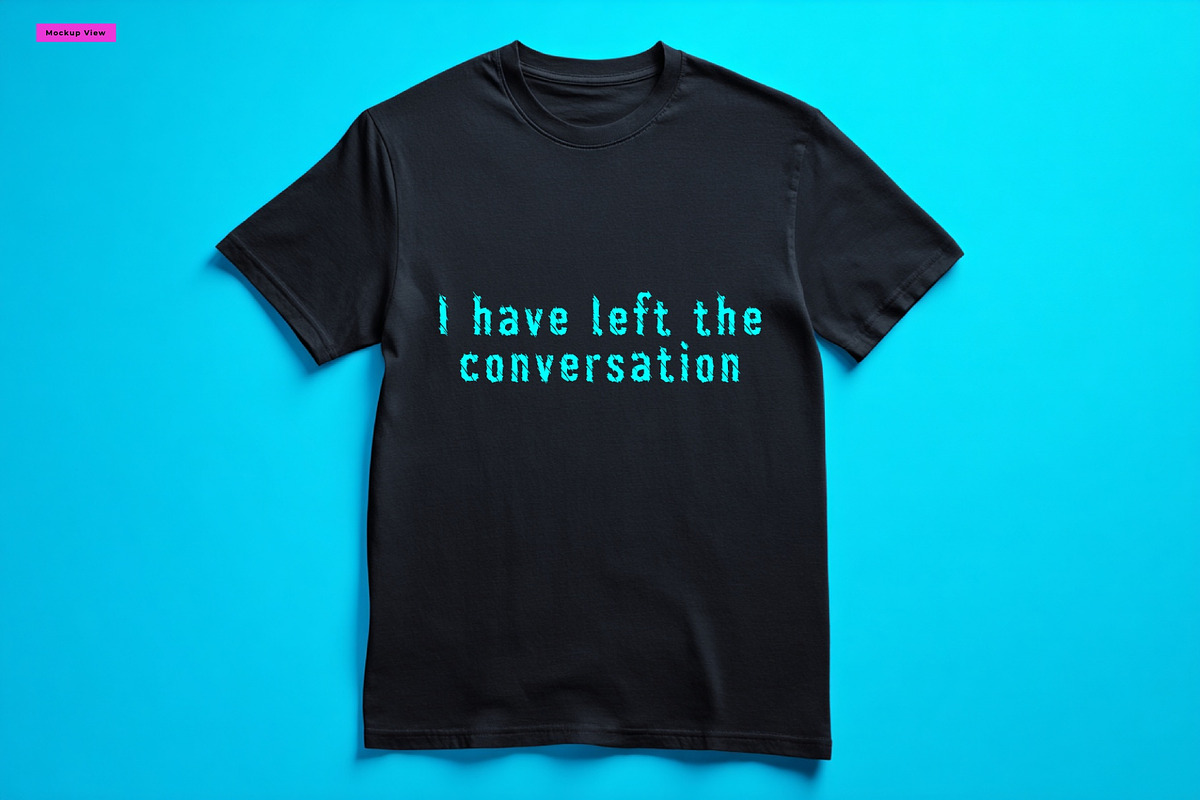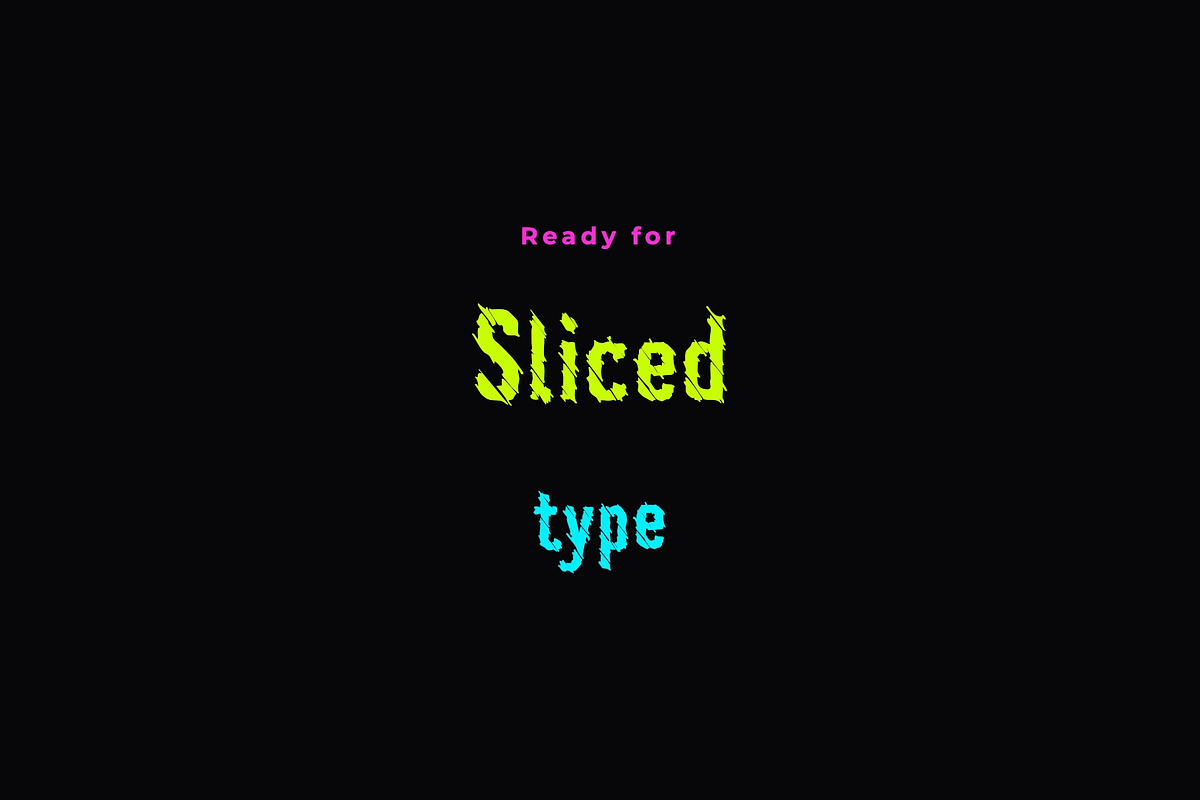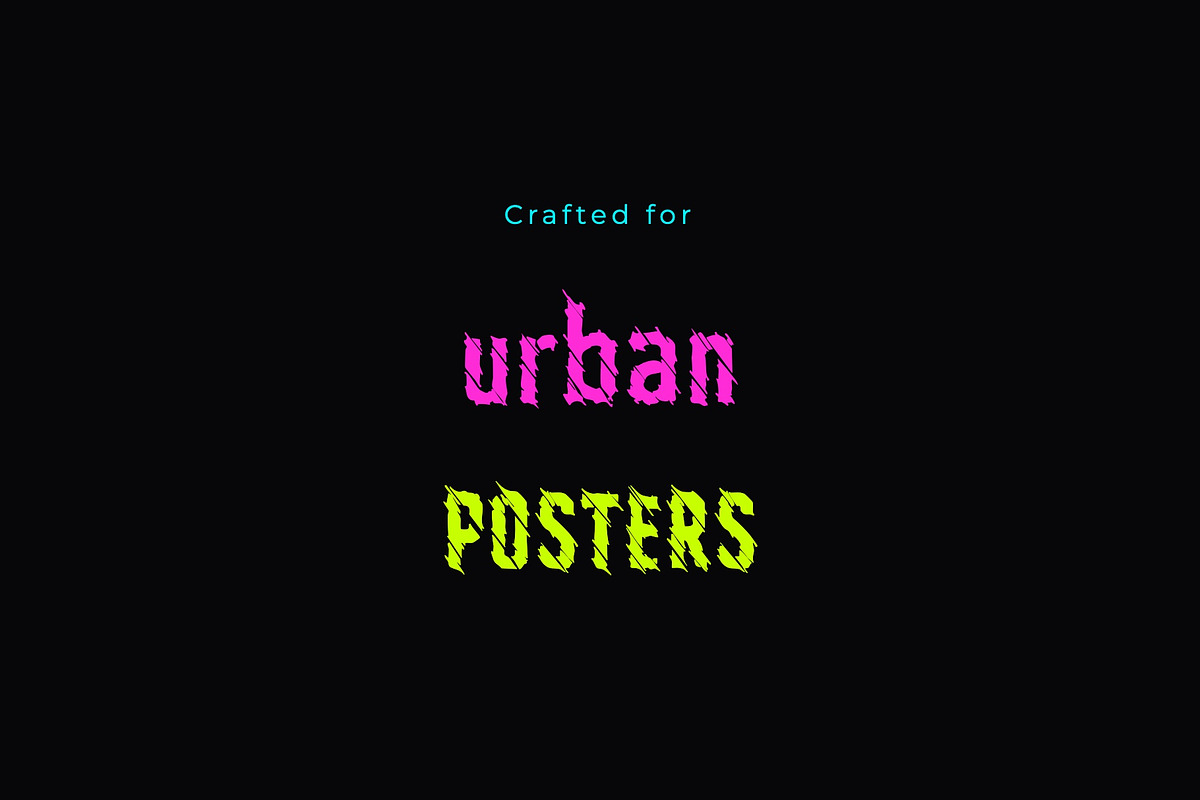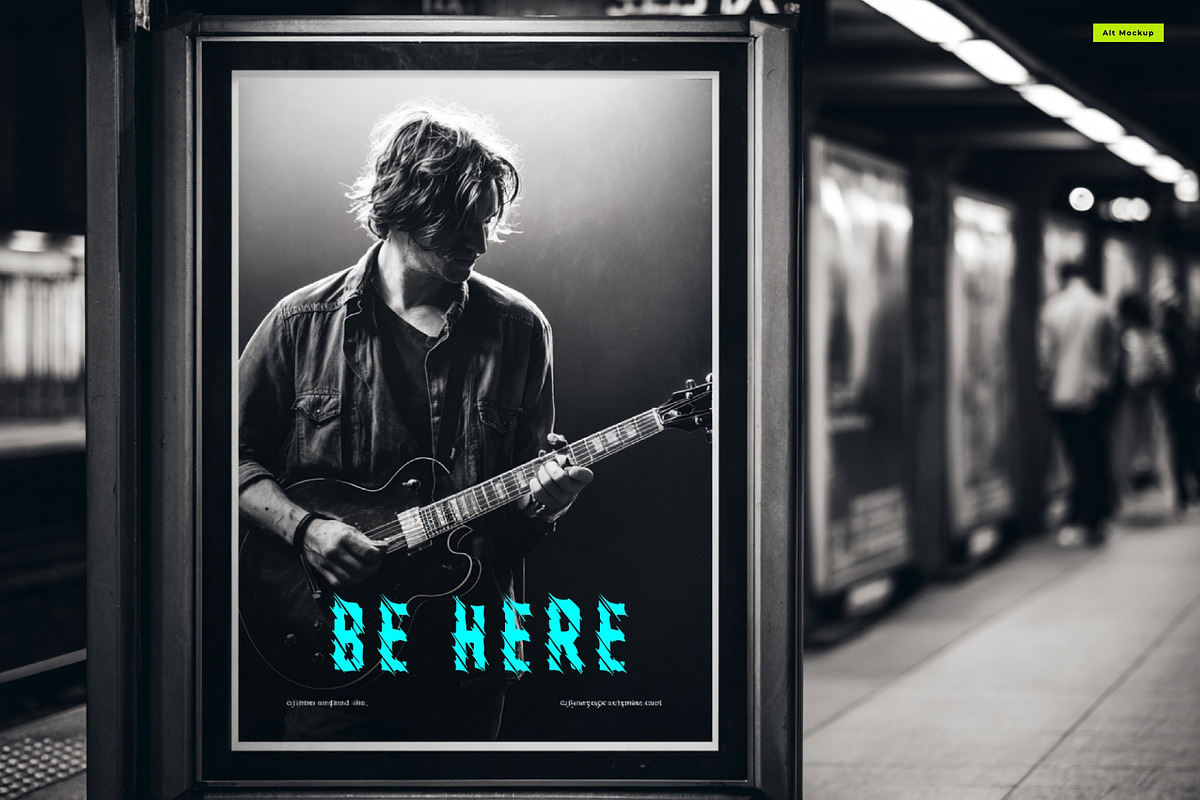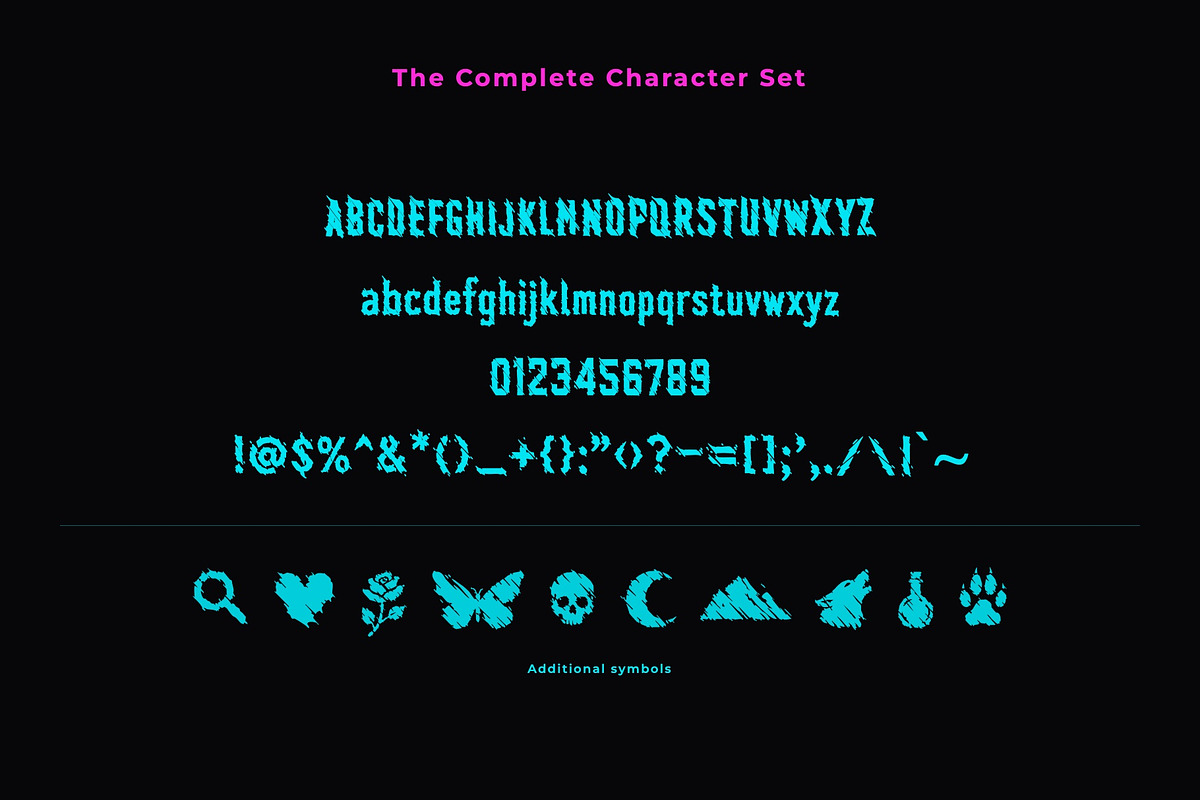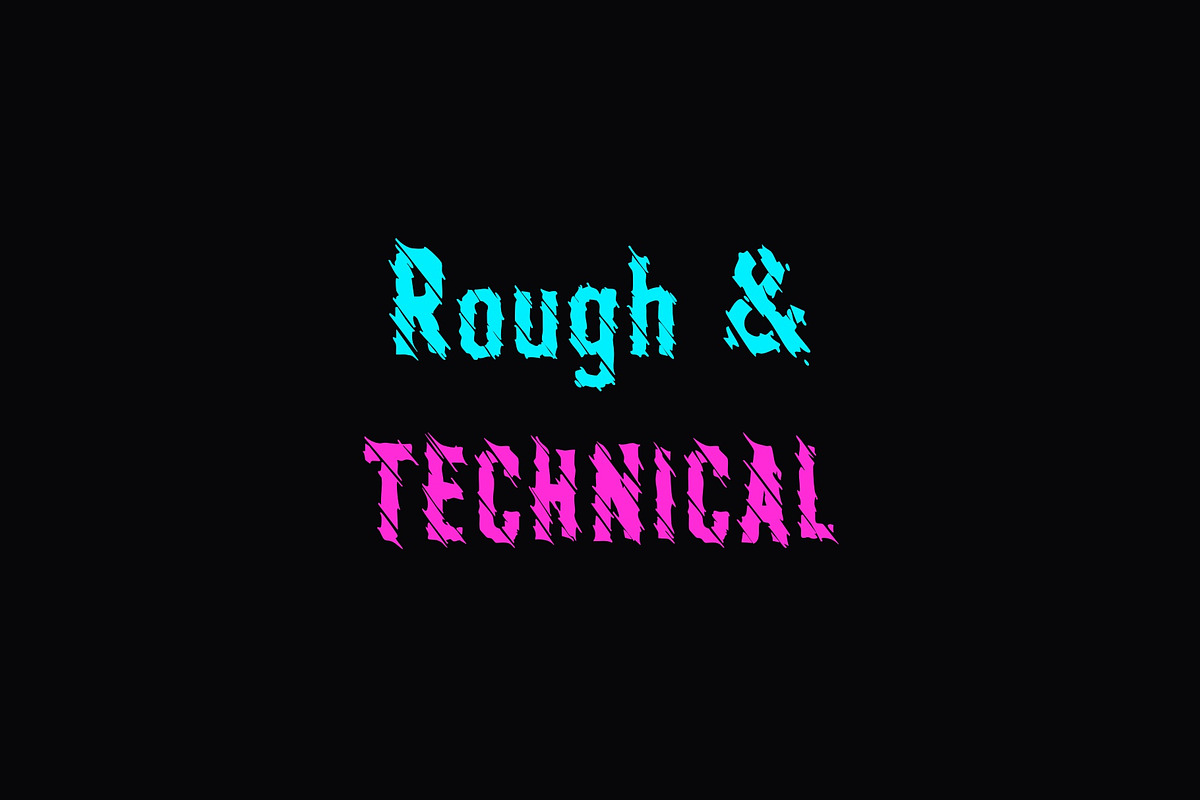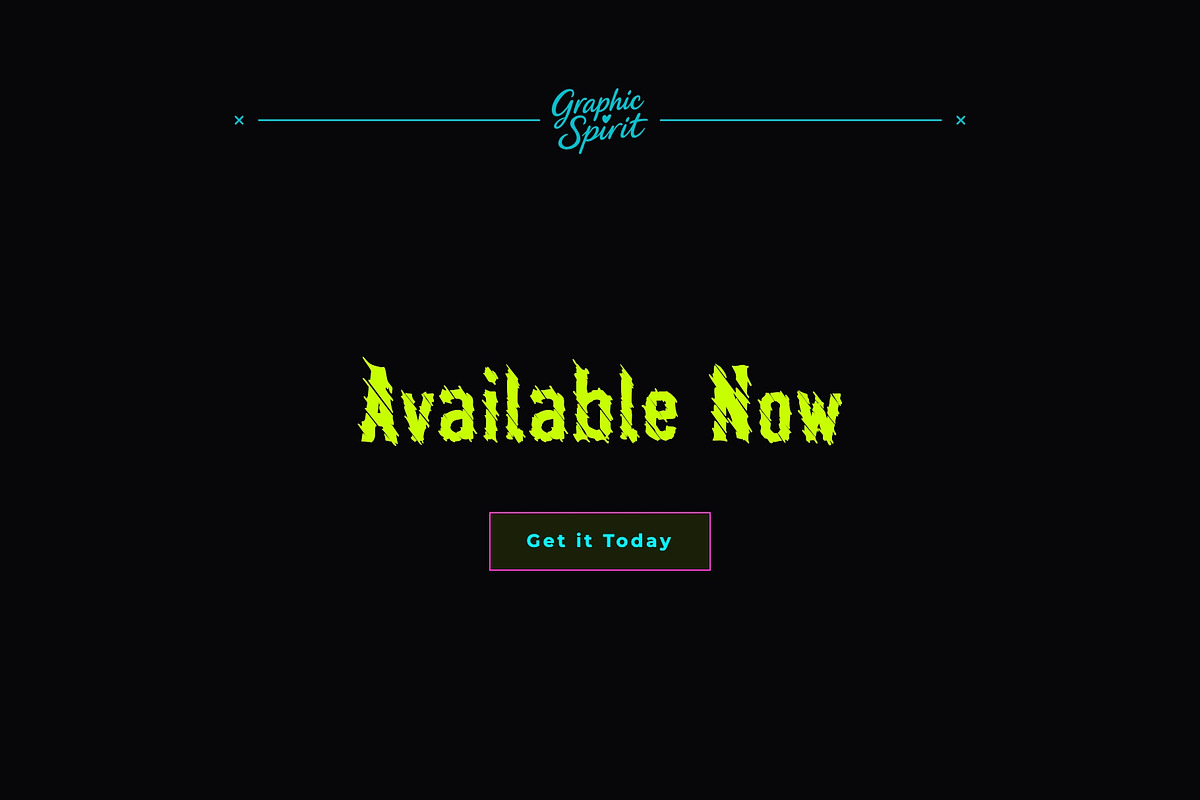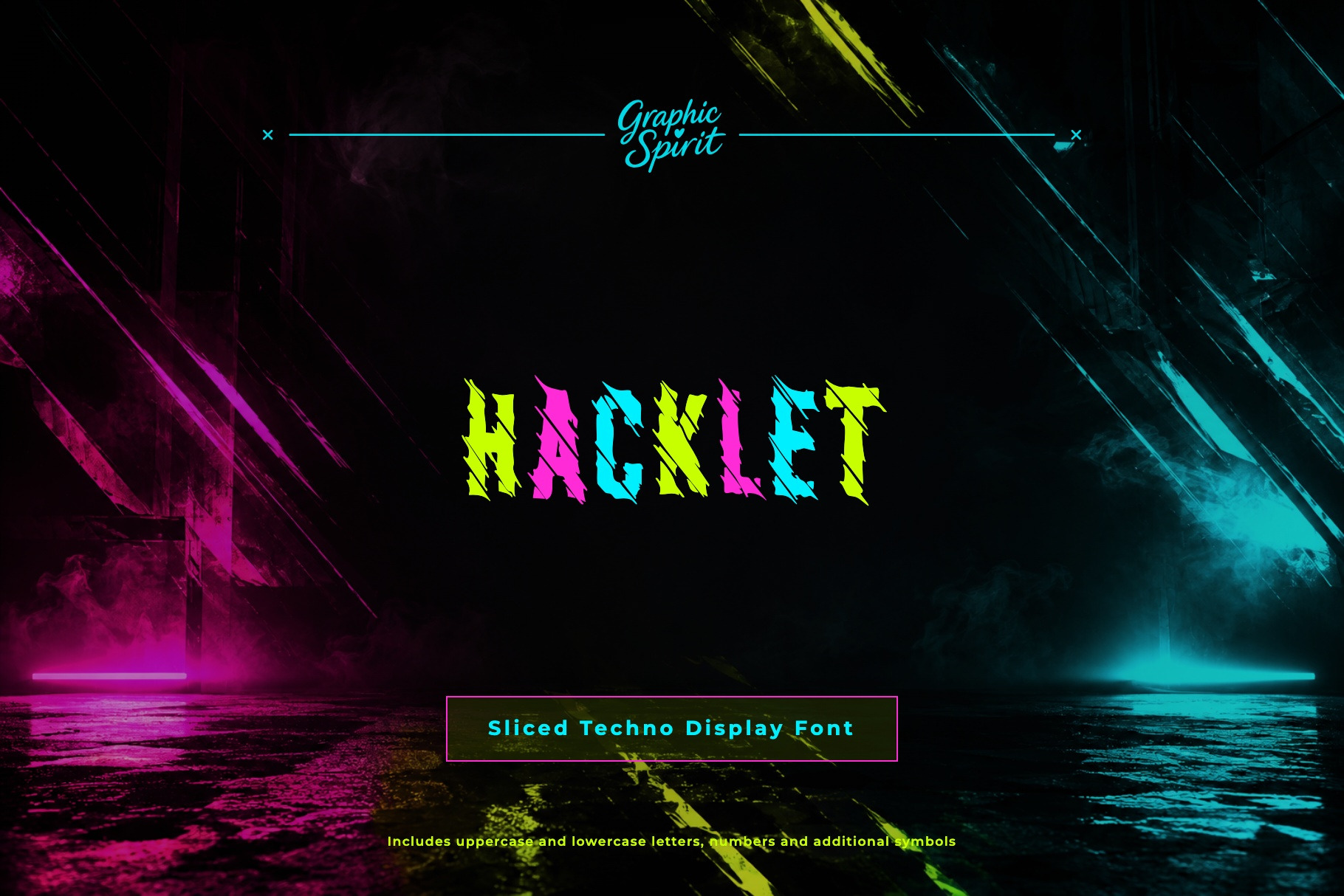
Hacklet Decorative Font
⚡ Hacklet is a sliced techno display typeface designed for gaming culture, futuristic branding, and digital poster design. Its fractured geometry and tight angular structure give every word a strong cybernetic presence without sacrificing readability.
🧩 Hacklet works beautifully for esports graphics, sci-fi posters, album covers, digital art, stream overlays, UI-inspired compositions, thumbnails, merch, and modern branding systems that need a cold technical edge.
🛸 It is especially effective in layouts that need tension, speed, and a digital-screen attitude. Designers can use it to push a project toward a more cyber, industrial, or futuristic direction without losing structure and impact.
Best for:
\\\\- 🎮 Gaming posters and esports branding
\\\\- 👾 Sci-fi titles and cyber visuals
\\\\- 📡 Stream overlays and thumbnails
\\\\- 💻 Digital art and futuristic layouts
\\\\- 🎧 Album covers and merch graphics
\\\\- ⚡ Sharp typography with technical attitude